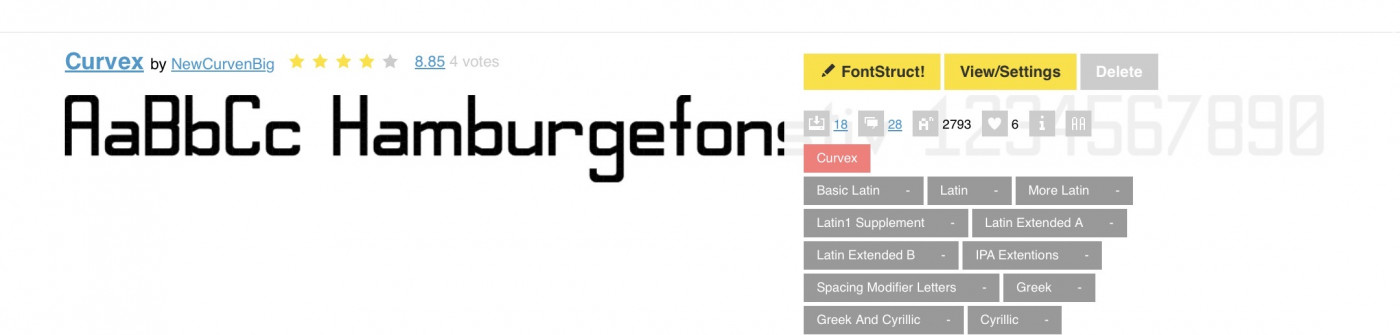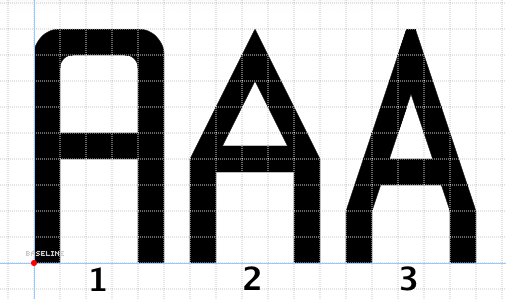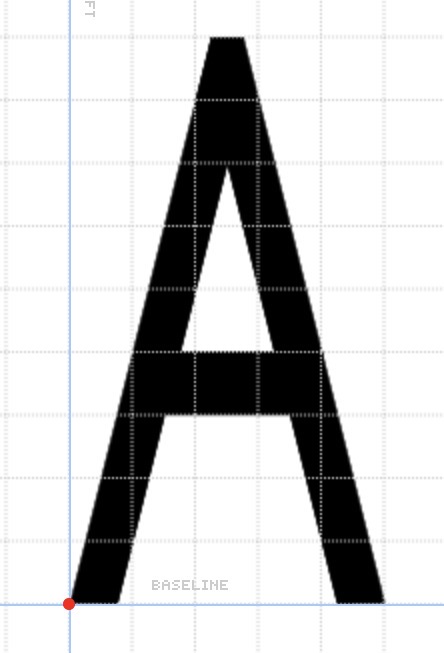
What might? Midnight!
The fact that this was made when Undertale celebrated its 10th anniversary... It's surprising!
Finish Cherokee.
Ok, I will.
Finished Cherokee.
@ctcg_?
can you finish mathematical operators?
No, they are too complex.
Sorry for your inconvenience.
@NewCurvenBig it’s fine
@NewCurvenBig
Is this a clone?
Yes, it is. It’s from a ghost account now owned by me. Seriously, @ctcg_.
Woah! Are you working on UCAS? It has 640 glyphs!
Yes, I am.
Just added ᔐᔑᔒ to complete my 2674-glyph milestone
request: latin extended-F
Ok, after when I complete Unified Canadian Syllabics and Lisu (planned for later).
Some characters in the Latin Extended-F block are superscripts of some characters in the Latin Extended-G block, so the latter block could also be done afterwards.
@BWM so then why those earlier codepoints for superscripts?
Because the Unicode Consortium chose to allocate them there?
Why not in, I don't know, Latin Extended-H?
Finish the UCAS
Add UCAS Extended
Add UCAS Extended-A
and Add Lisu
@NewCurvenBig Are you going to finish Unified Canadian Aboriginal Syllabics?
On the UCAS block, I get a 6~10 day cooldown each syllable row, so expect me adding some glyphs in the International Women's Day.
oops @ctcg_, I didn't know that the Czech Republic didn't celebrate International Women's Day, so the date is uncovered—March 8th.
Are you going to add more UCAS each day?
@NewCurvenBig Are you going to do more UCAS each day?
Curvex has its own set in @ctcg_’s favorites?!
The red tags (in any user's favorites) are not sets. They are favorite tags.
@ctcg_ second-to last message respond I do UCAS each 6~10 days!
Ended the hiatus by starting Carrier syllabics…
Nope
@NewCurvenBig Do you have an alt account?
@ctcg_: Yes, I do now. I am the alt account.
Can you change the A to reduce confusion with U+1DF6A (which will be added in Unicode 18.0)? You may need to log back in to your main account to work on this font.
@ctcg_: no, it'll look ugly.